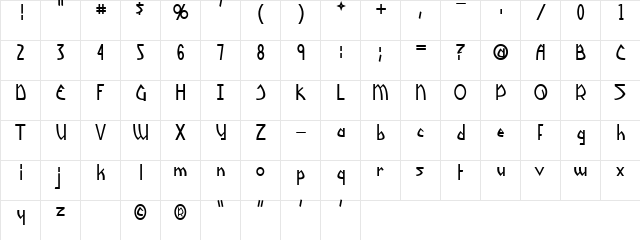
Yoshitoshi Regular
Design Context for Yoshitoshi Typeface
Yoshitoshi is a composed and adaptable typeface that performs quietly and consistently across a wide range of design contexts.